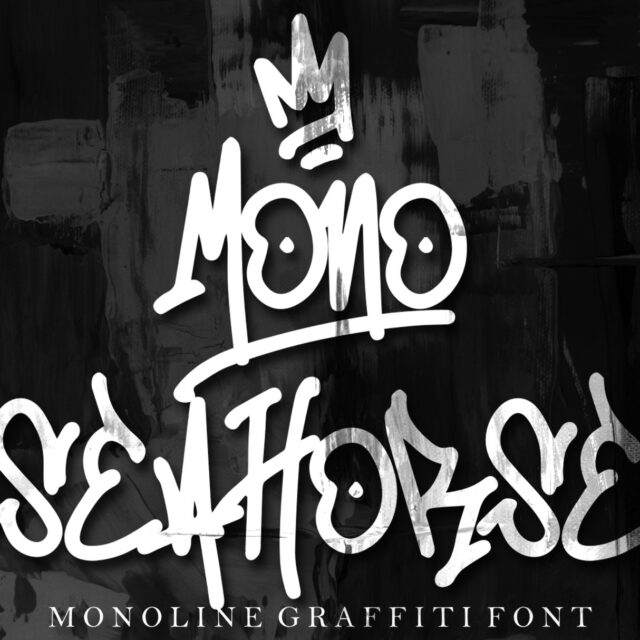
Mono Seahorse
"Mono Seahorse" is a monoline graffiti font perfect for street-inspired designs. With its sleek and edgy style, this font captures the essence of urban culture. It features stylistic…
About Mono Seahorse
“Mono Seahorse” is a monoline graffiti font perfect for street-inspired designs. With its sleek and edgy style, this font captures the essence of urban culture. It features stylistic alternates and swash options that add a unique and decorative touch to your typography. Bring your street-inspired projects to life with the raw energy of “Mono Seahorse.”
Featured :
• Uppercase
• Number and Punctuation
• Stylistic Alternate (Swash)